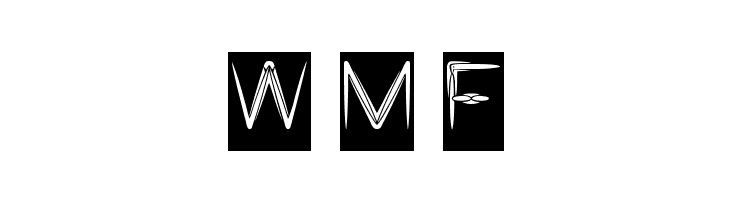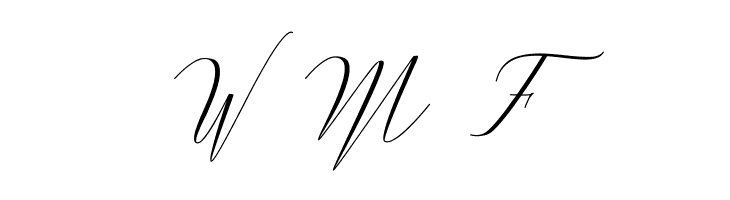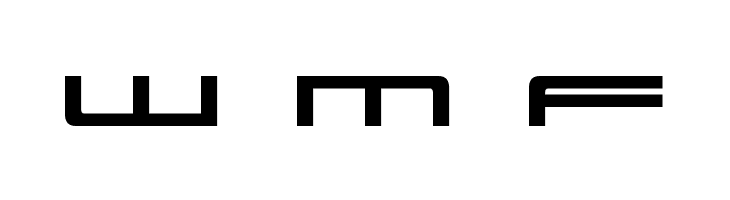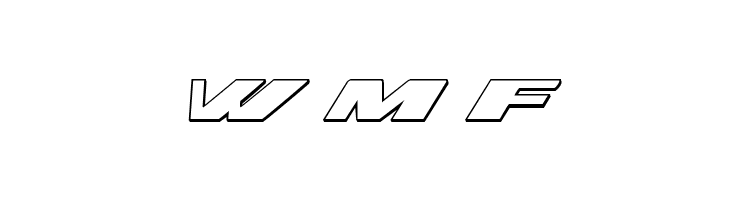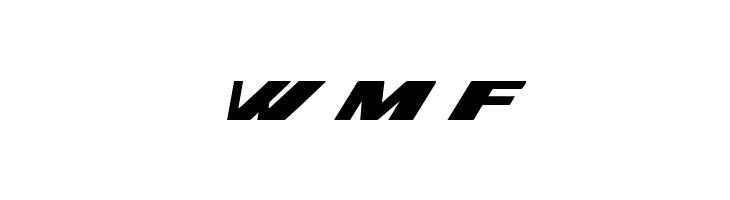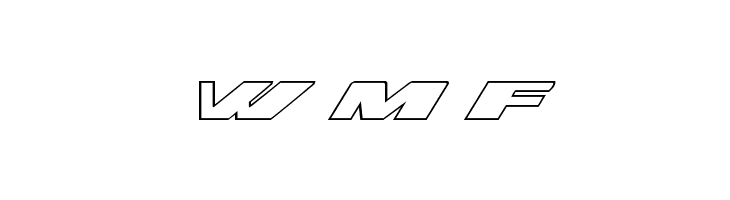
An artistic and decorative font with intricate woven patterns.
An elegant and flowing script font with sophisticated loops and swirls.
A sleek, italic font with a futuristic and dynamic style.
A futuristic, geometric font with sharp angles and clean lines.
Bold, italicized font with a 3D effect and geometric, angular characters.
A bold, italicized, and condensed font with a dynamic, modern style.
A bold, italicized outline font with a futuristic and dynamic style.
A bold, left-leaning font with a futuristic and dynamic style.
A bold, expanded, and italicized font with a modern, dynamic style.
A bold, italicized font with a gradient effect created by horizontal lines.